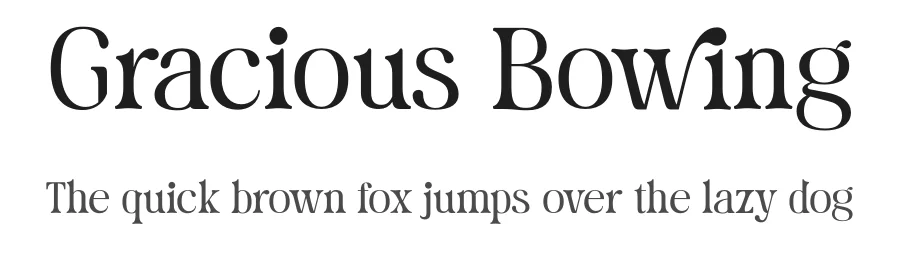
About Cargen Font
| Designer | Brandsemut |
Cargen Font is a versatile serif font that works for both headings and body text. Pair it with a contrasting sans-serif or slab serif font to add visual interest and a clear distinction between titles and body copy.
Cargen Font
by BrandSemut